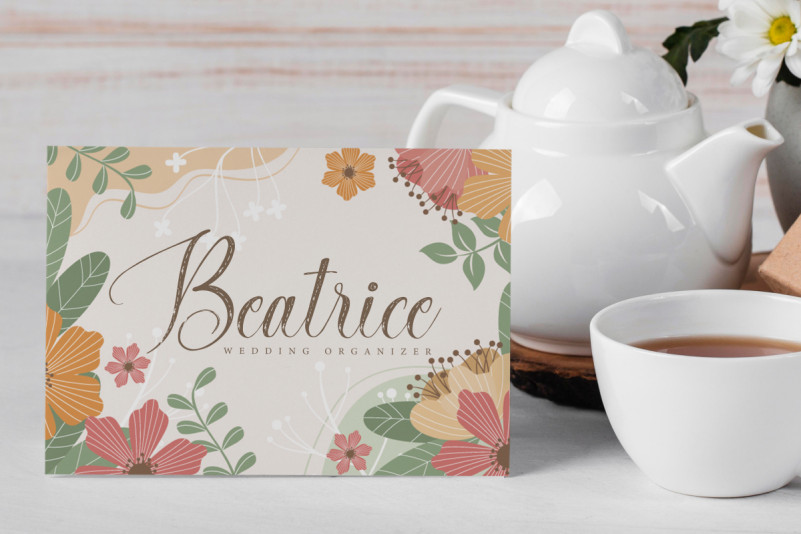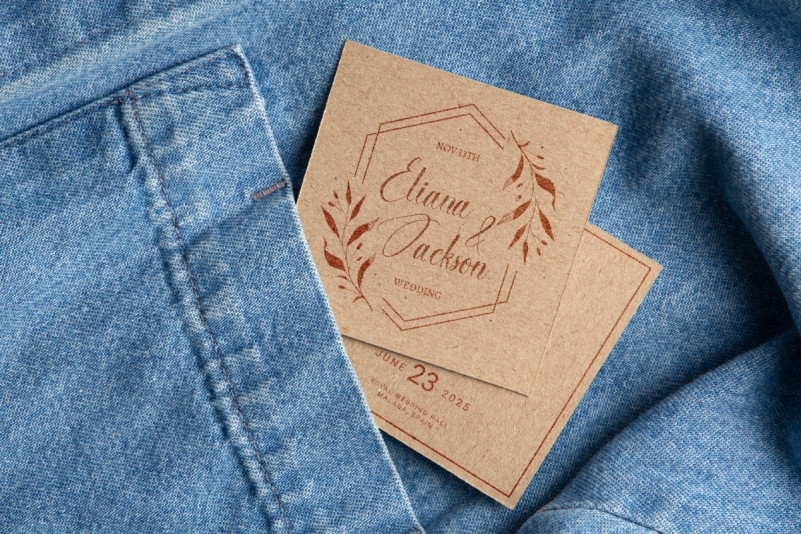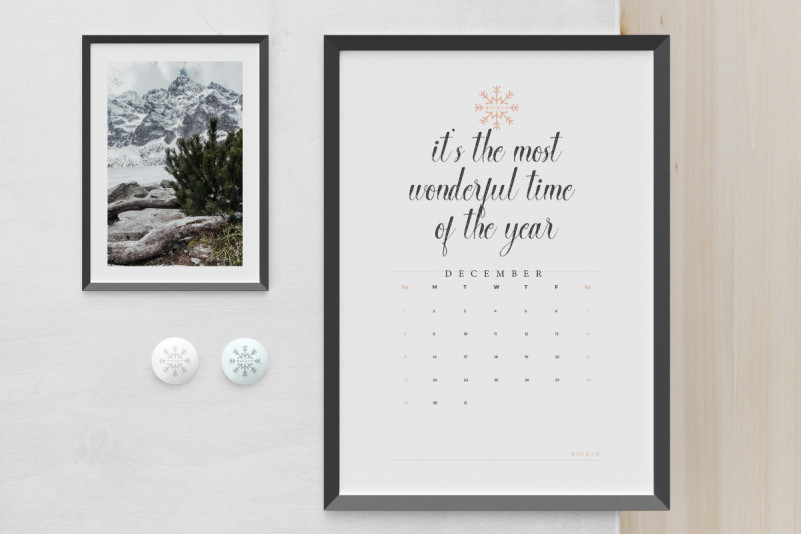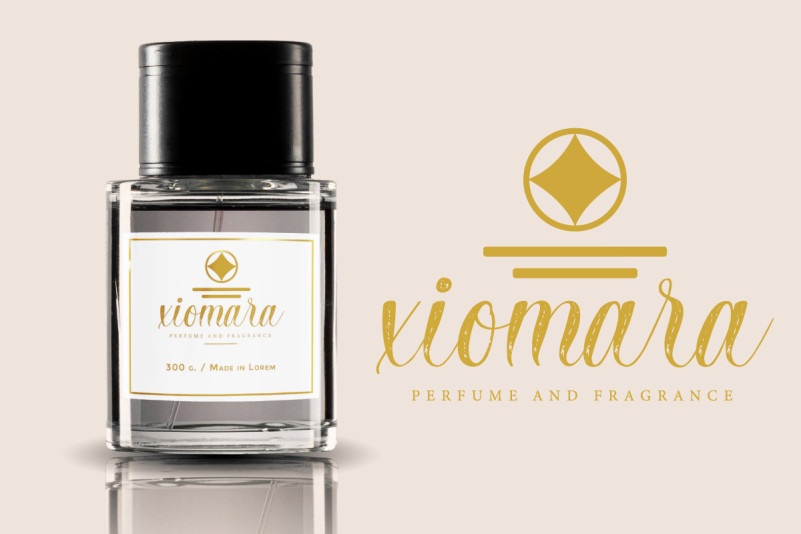
Brianna Miriam Font
Brianna Miriam Script Font is a beautiful script display font, with calligraphy style. This font has beautiful curved lines that have sparkles in it and still easy to read. This font has a great appearance making it suitable for many industries, such as event or wedding organizer, fashion, florist, homeware, jewelry, perfume, printing, publishing, restaurant, salon and spa, and more!